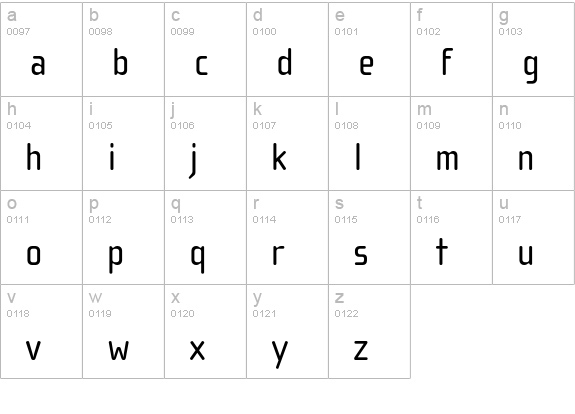
ChollaSansRegular Font Details
ChollaSansRegular font is a versatile and modern typeface that exudes simplicity and elegance. With its clean lines and balanced proportions, this font is perfect for a wide range of design projects, from branding to print materials. What sets ChollaSansRegular font apart is its ability to convey a sense of sophistication while remaining highly readable. Whether used for headlines or body text, this font will make your design stand out with its timeless appeal. The best part is that ChollaSansRegular font is available for free download at FontsMarket.com. So why wait? Elevate your design projects with this stylish and contemporary font today!